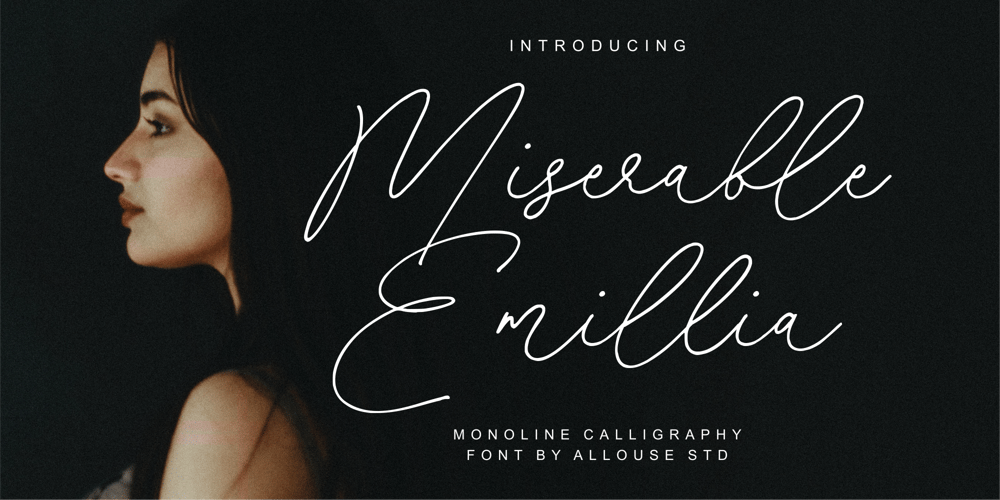
Miserable Emillia Font Family was designed by Fachrizal Yusuf and published by Allouse Studio. Miserable Emillia contains 1 styles and family package options. Proudly Presenting, Miserable Emillia A Bouncy Calligraphy Font.Miserable Emillia is perfect for any titles, logo, product packaging, branding project, megazine, social media, wedding, or just used to express words above the background.Miserable Emillia also come with Multi-Lingual Support.Enjoy the font, feel free to comment or feedback, send me PM or email. Thank You!